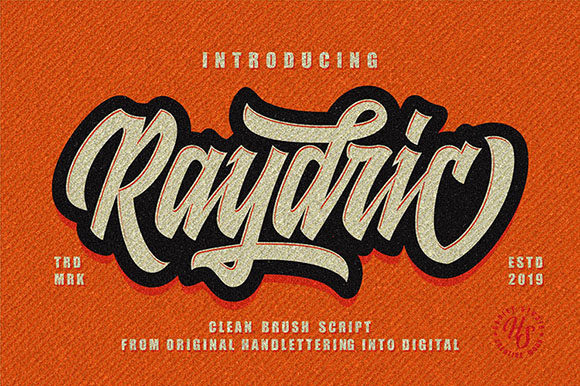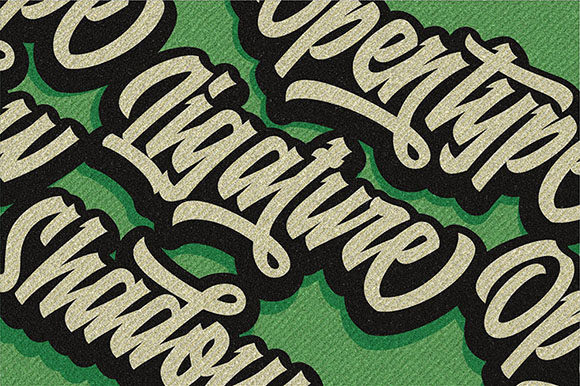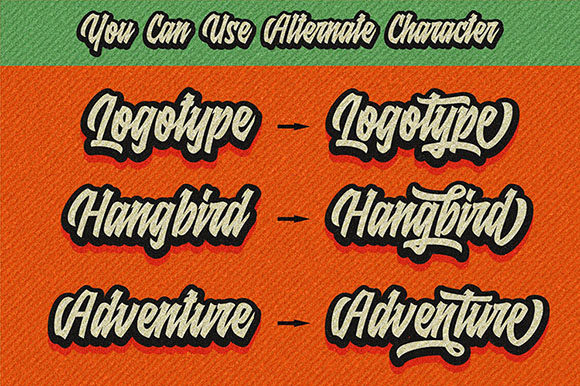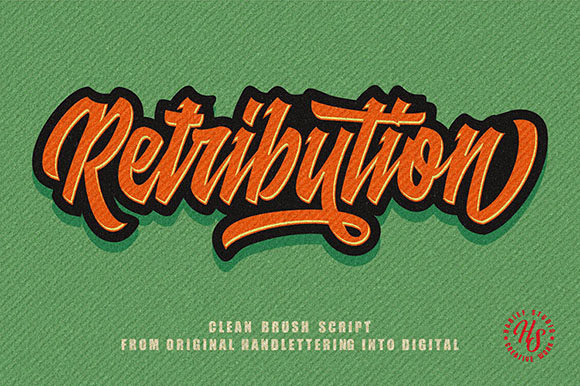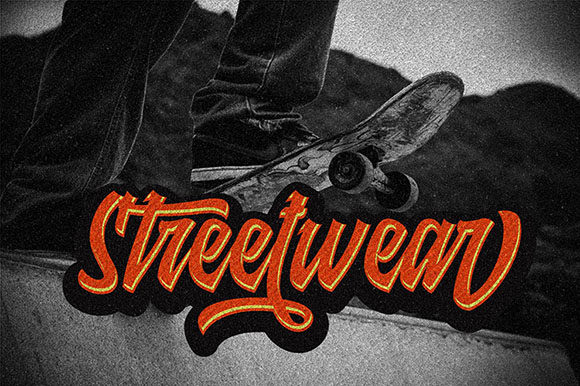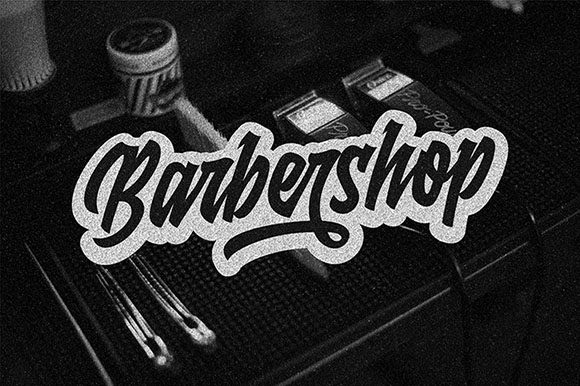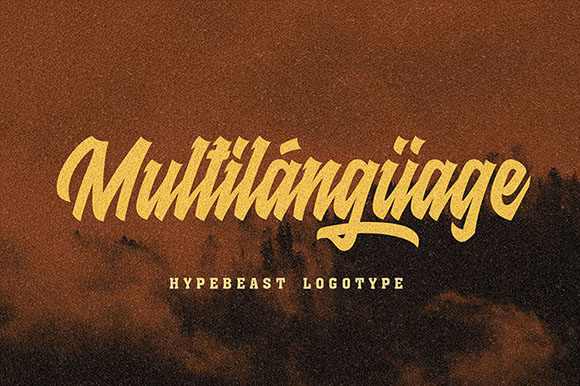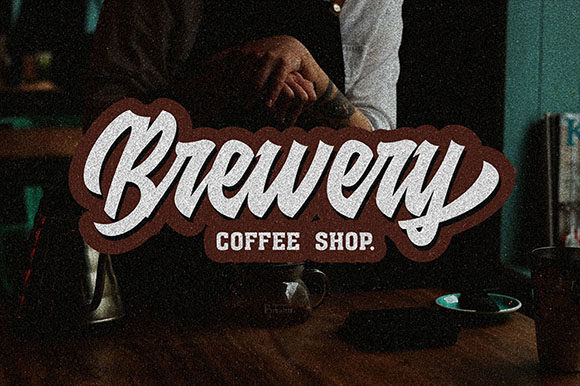
Raydric Script + Shadow Outline Font
About Raydric Script + Shadow Outline Font
Raydric is a modern handwritten font. It comes with a shadow outline that makes it perfect for logos, quotes, posters, merchandising and much more!